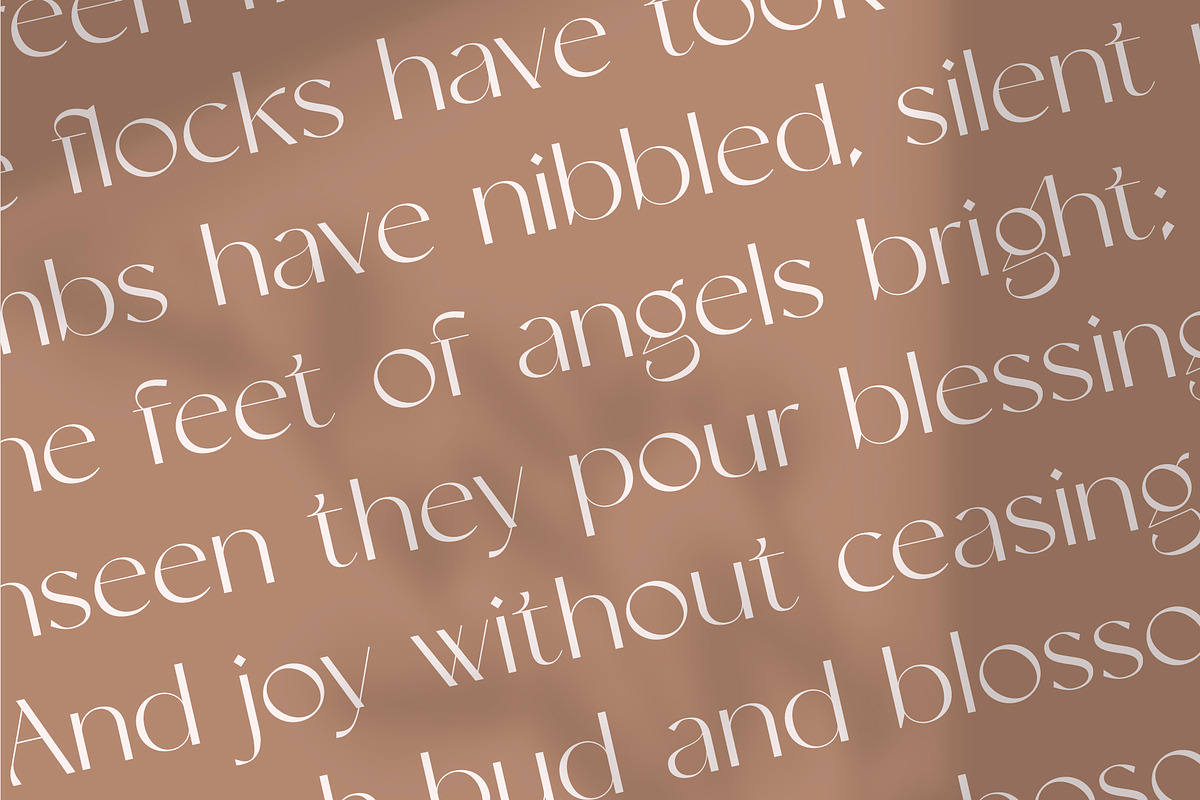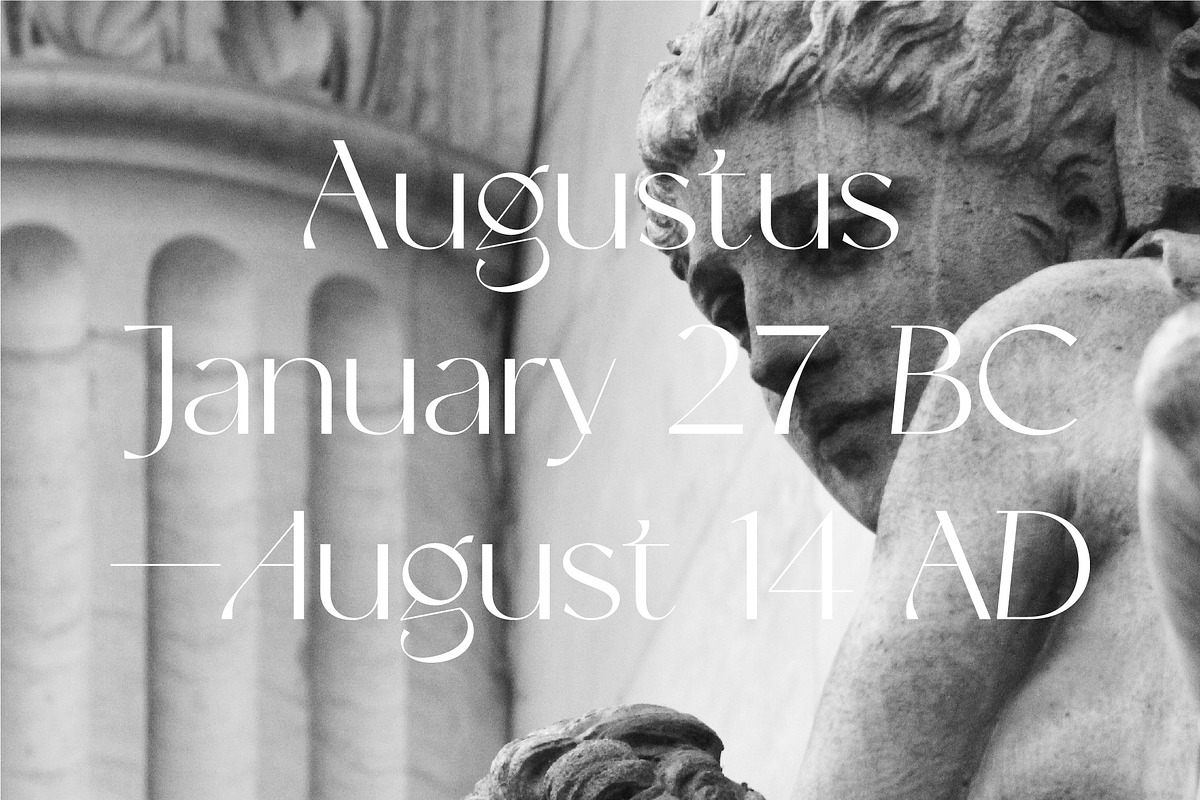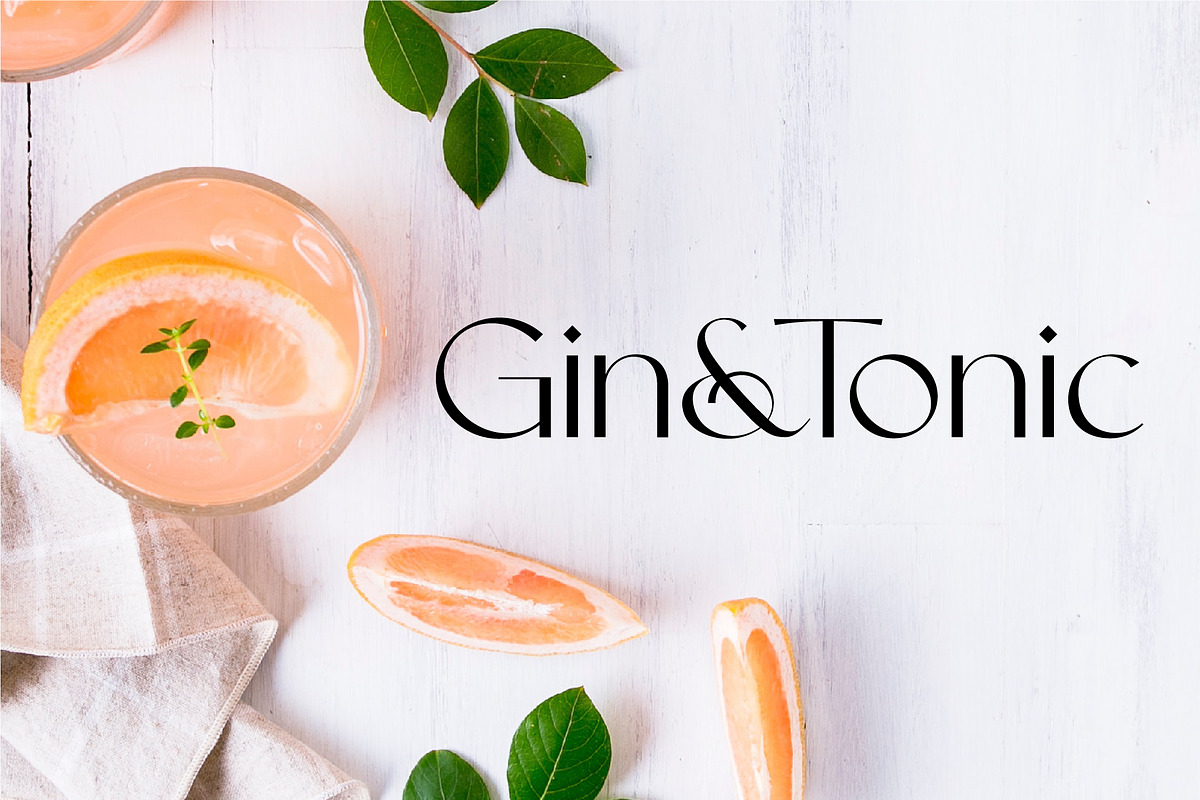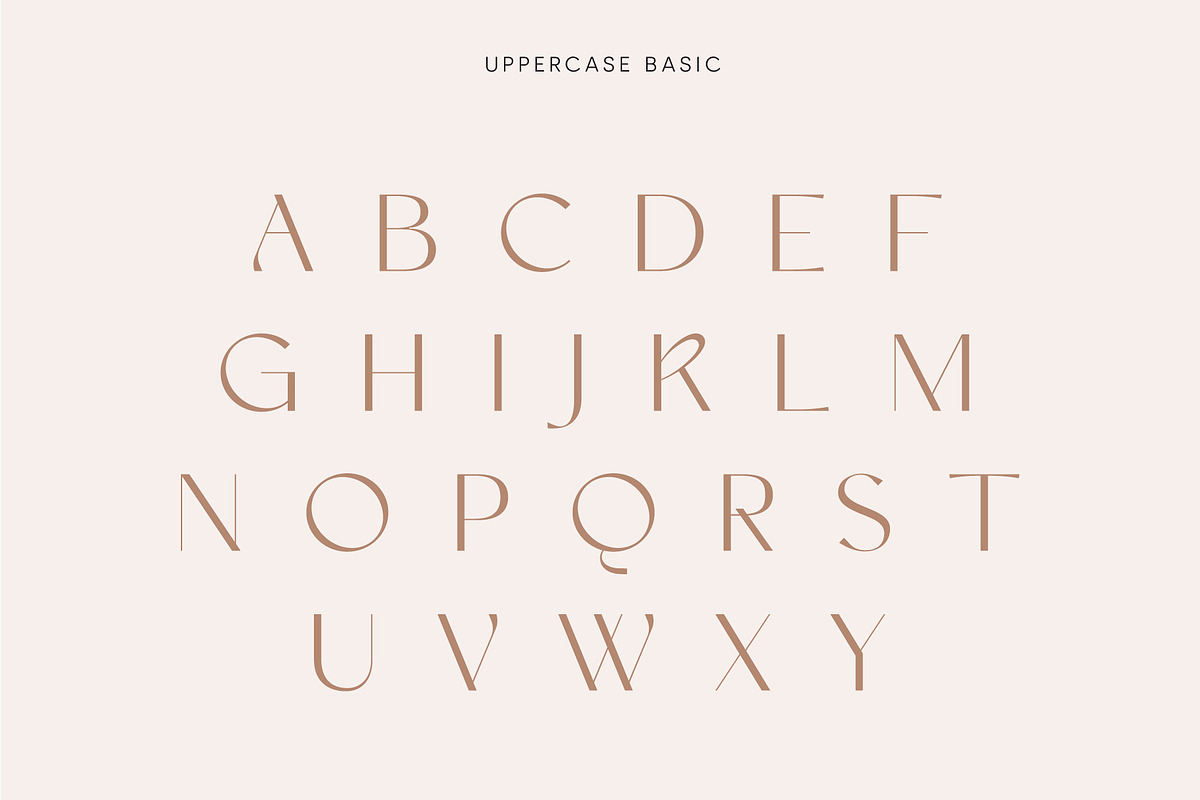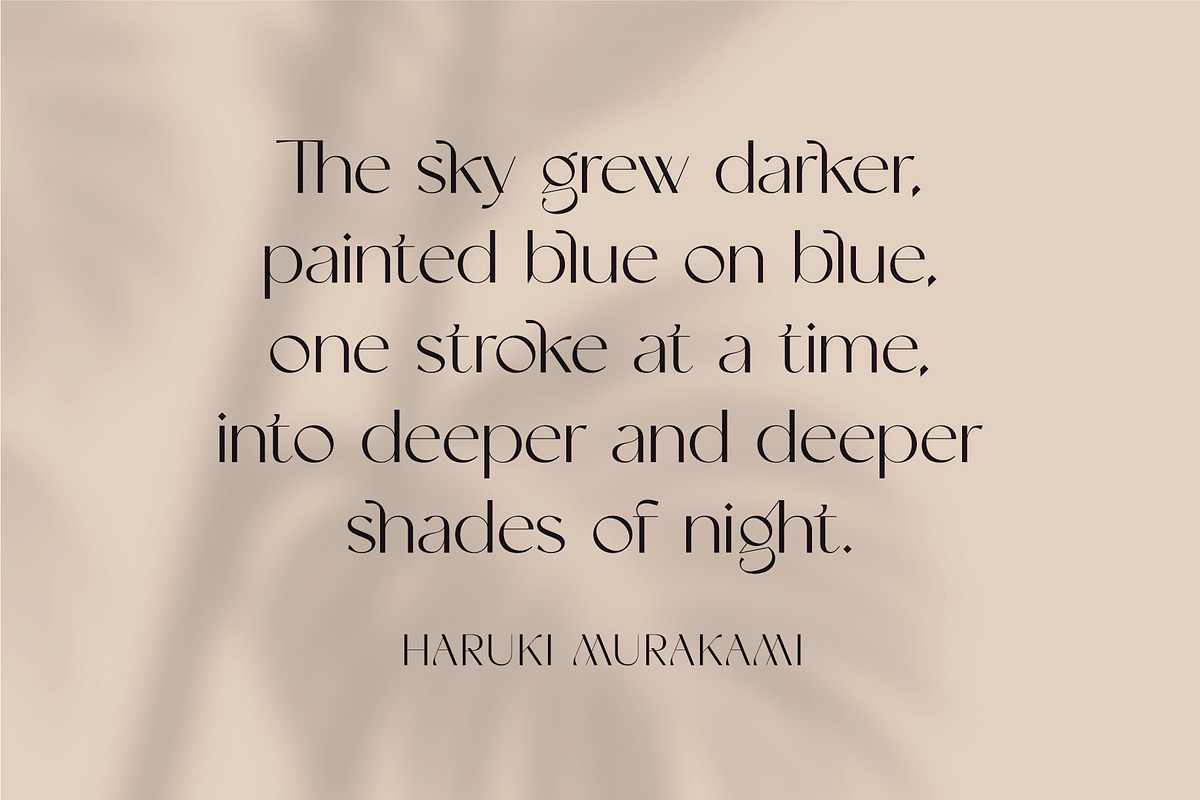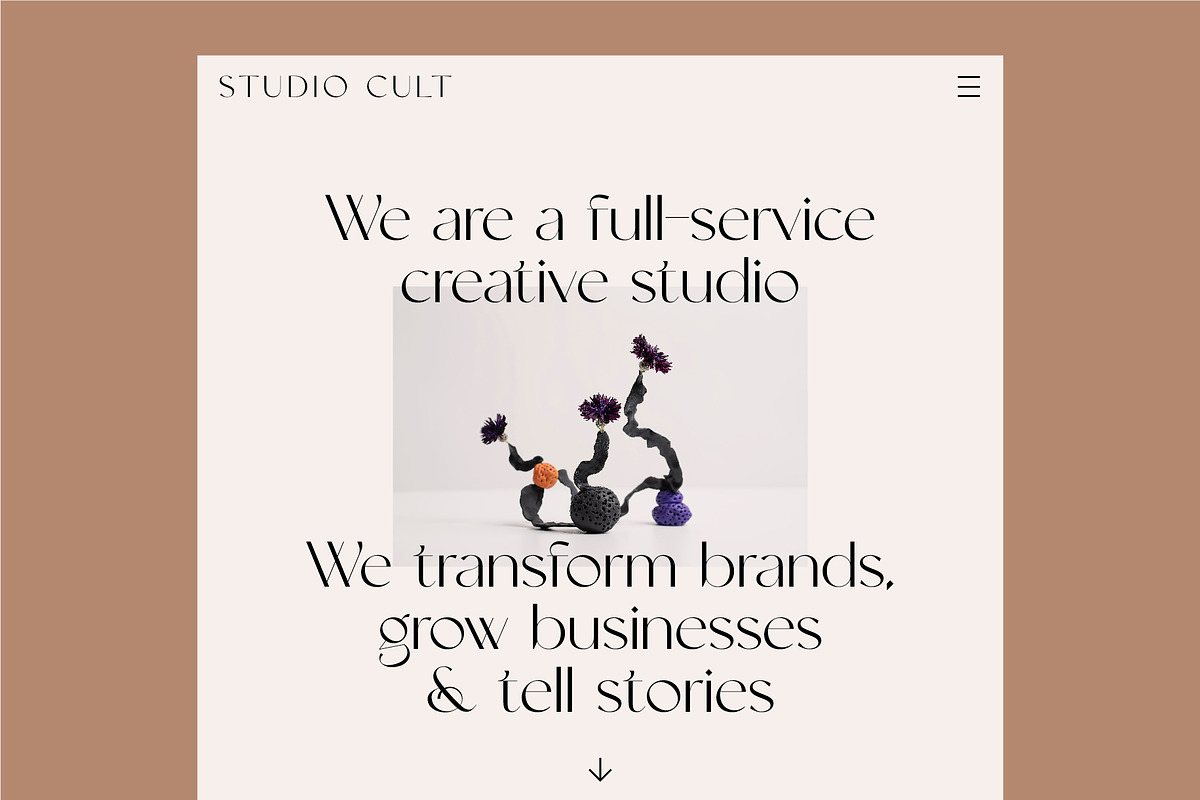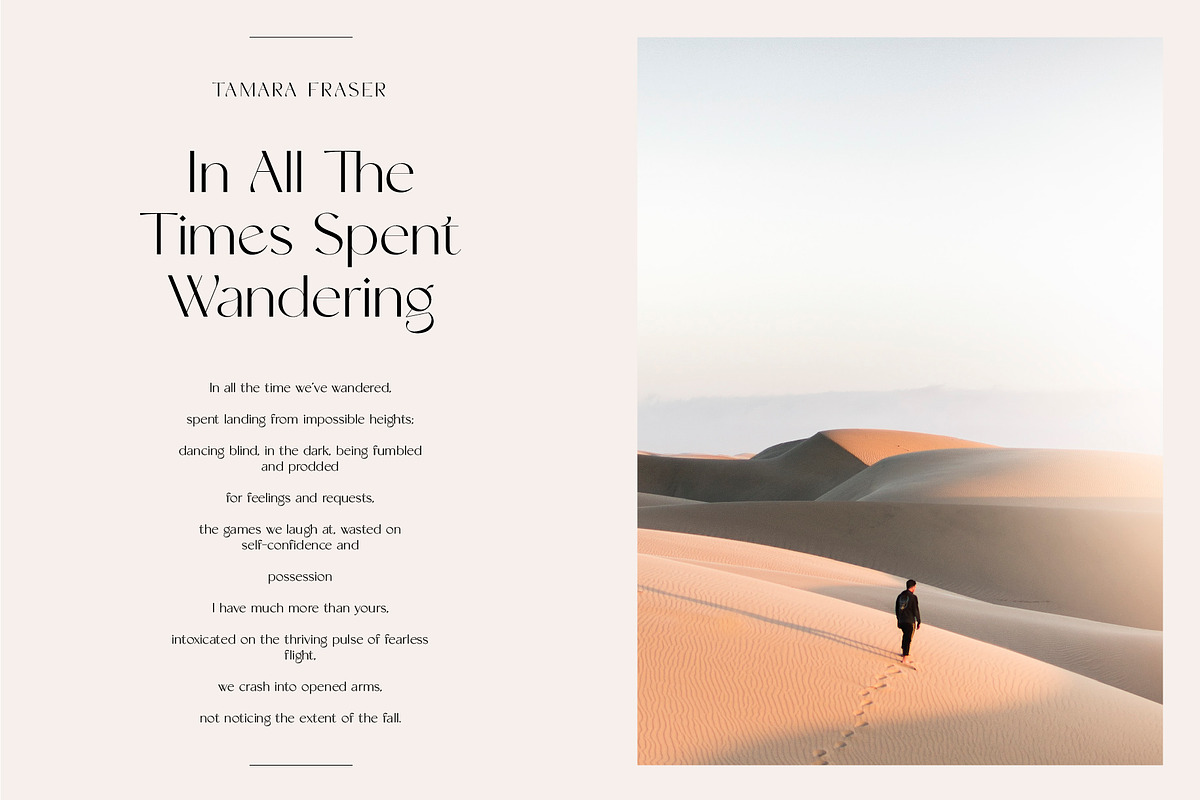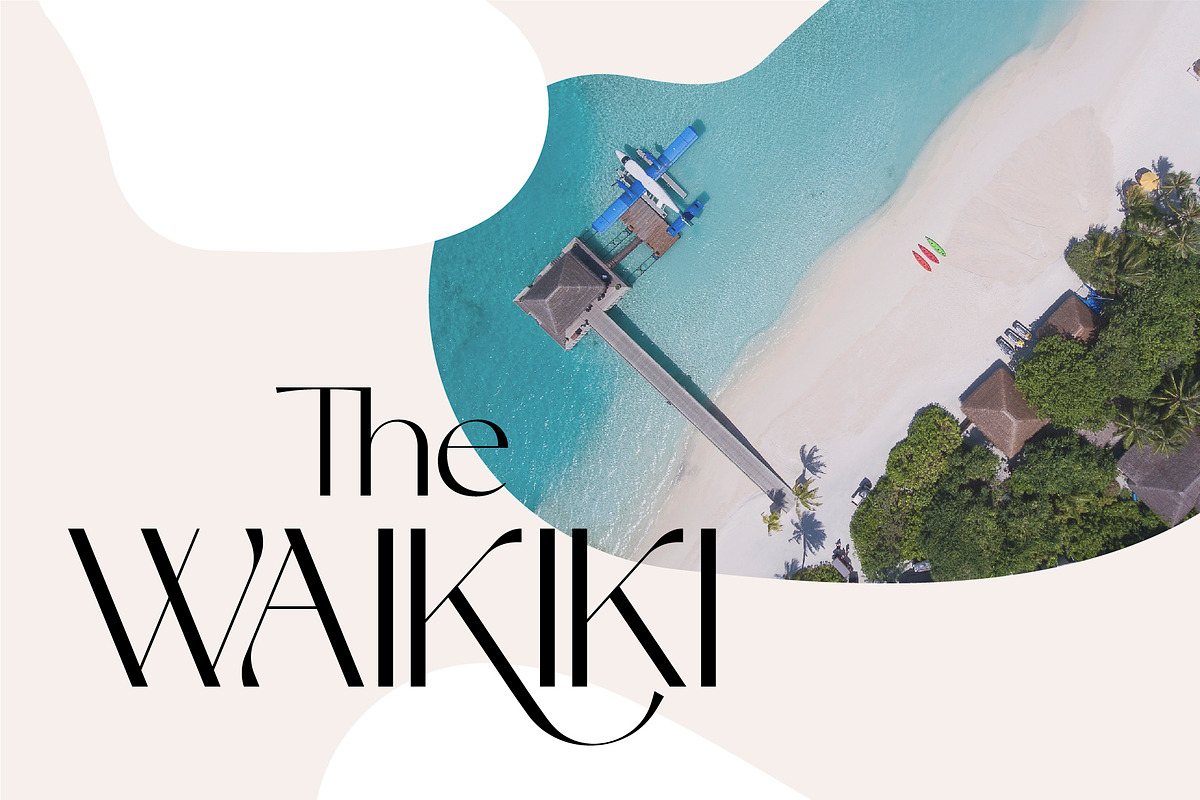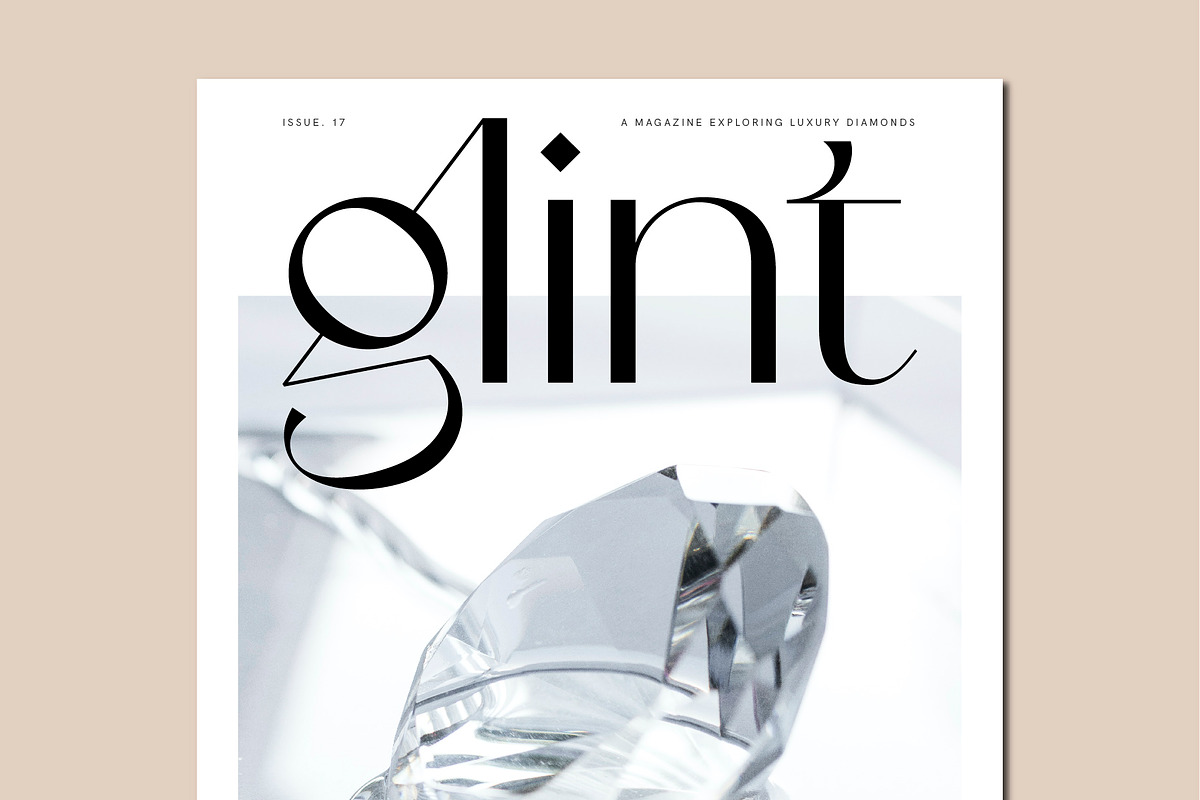
Nightfall - Modern Luxury Sans-Serif
Nightfall - A contemporary, attention-grabbing yet elegant display sans-serif font that comes with uppercase and lowercase characters and is packed full of alternates and ligatures to create great variety in your designs.
This is primarily a display font (but can also be used for body copy) that we recommend using in the following types of work; magazines (titles and layouts), logos and branding, invitations, quotes, social media posts, blog headers, posters, and advertising. It also comes with 6 free logo templates that can be used in any of your design work.
Language Support: Afrikaans, Albanian, Catalan, Danish, Dutch, English, French, German, Italian Norwegian, Portuguese, Spanish, Swedish, and Zulu.
- Uppercase and lowercase glyphs
- Alternate glyphs
- Standard and Discretionary Ligatures